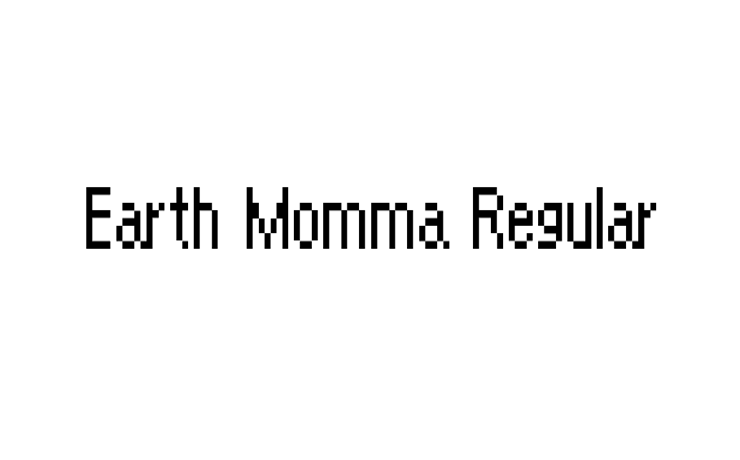
Earth Momma Font is a beautiful bitmap pixel typeface with a simple and clean design. This font will look perfectly in both printed and digital projects.
Its structure is made with box strokes in which the designer uses a thick shape. He uses a digital tool to create all the structures because such structures were not created manually.
And it maintains a proper foundation with proper flow. Therefore, you can easily use it for professional work. Because in this way it will give a professional shape and will become a nice choice for a professional project.
The real reason for its attractiveness is its height which makes this cool font tall, while the width is equal to the standard size.
With this unique font help, you can create brand logos, game titles, digital work, gaming covers, unique emblems, product designs, product packaging, game graphics, special event cards, and many more.